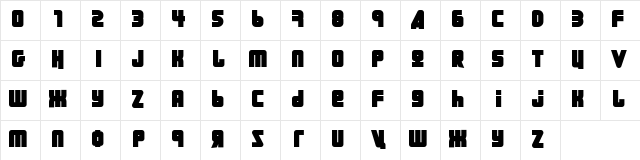
URAL Regular Free Font
URAL Regular
Version: Fenotypefaces 2002 , Emil Bertell
Design Context for URAL
URAL is a composed and adaptable typeface that performs quietly and consistently across a wide range of design contexts.